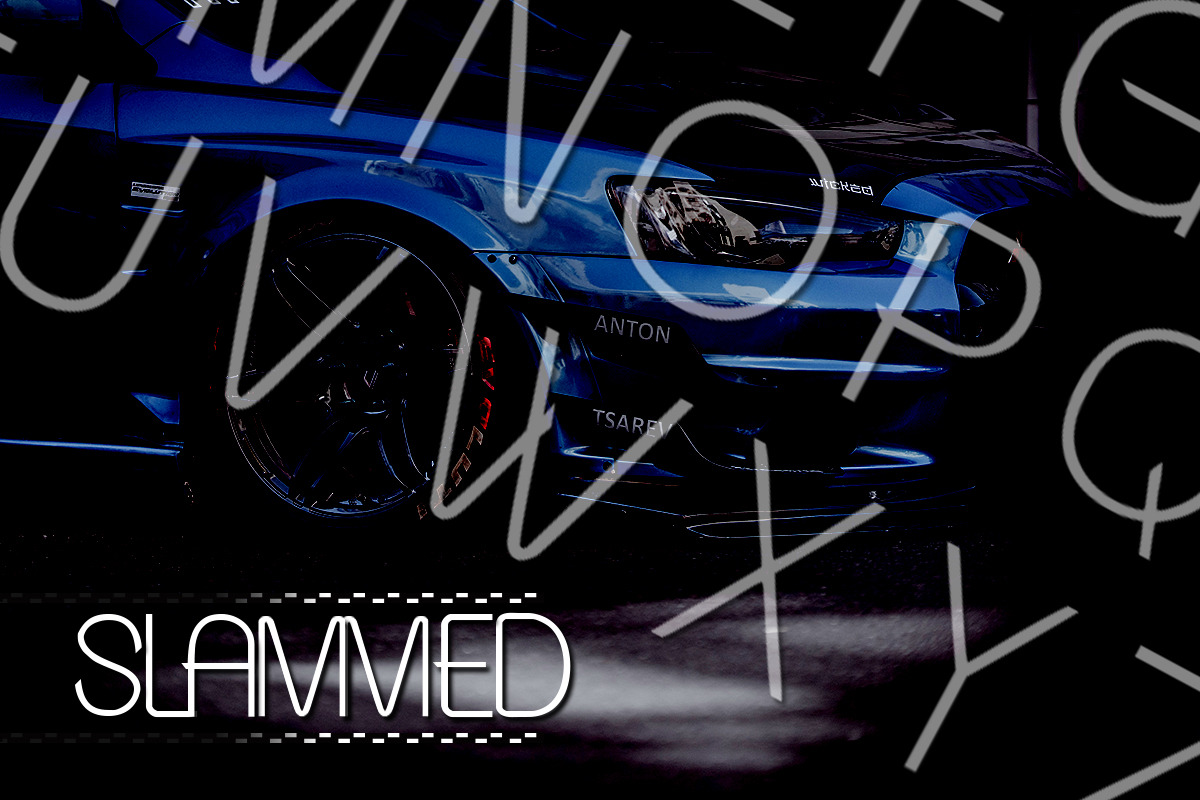
Guilty - design font
This font is smooth but edgy. It's thin yet sophisticated, old but wise. Very nice font set to use for automobile ad campaigns, letterhead, company logo font. Guilty includes a full set of elegant uppercase and lowercase letters, multi-lingual symbols, numerals, and punctuation. The font looks best at size 10pt and up..